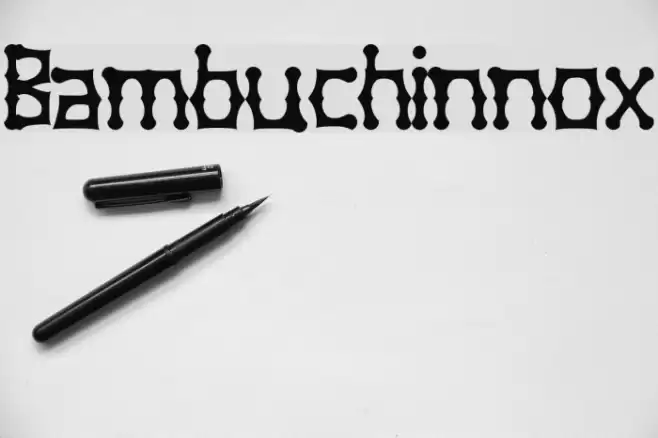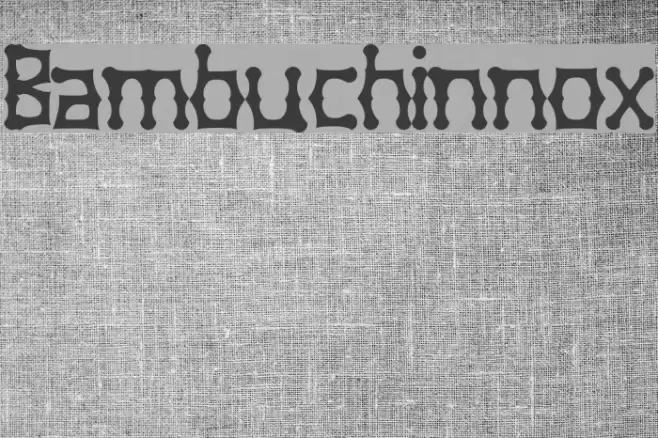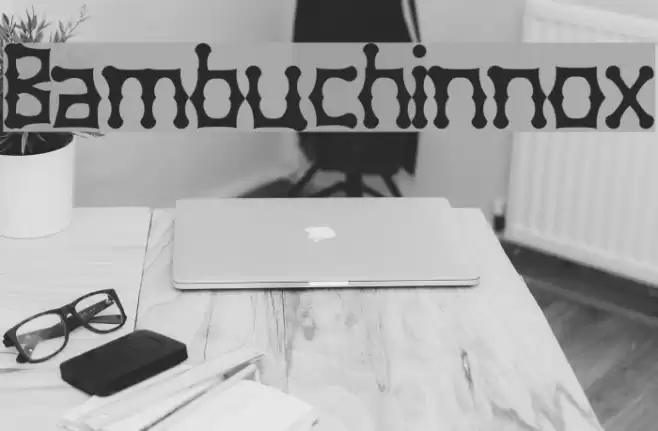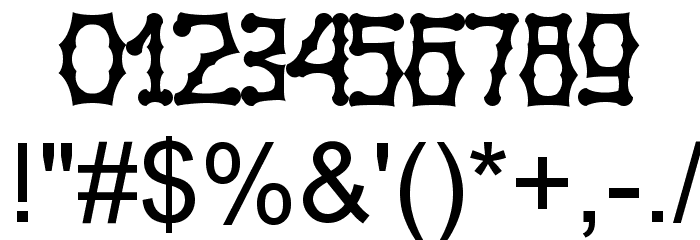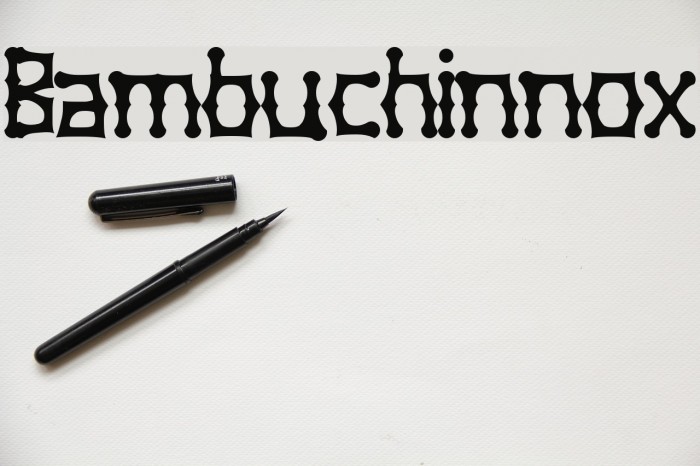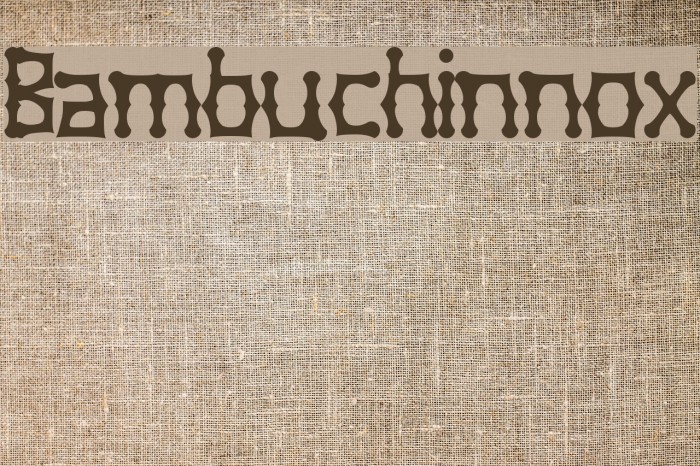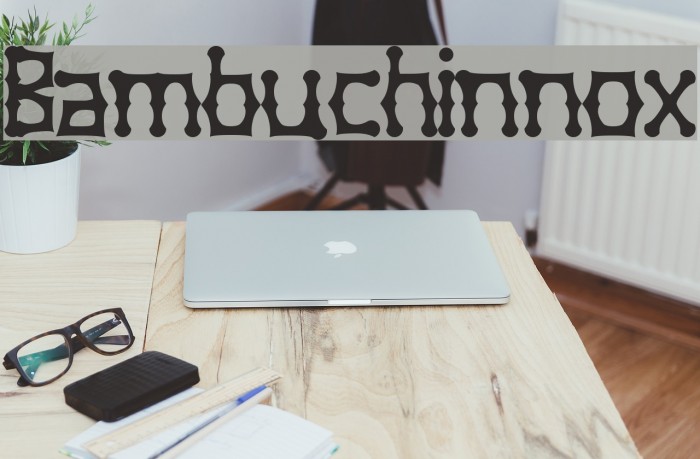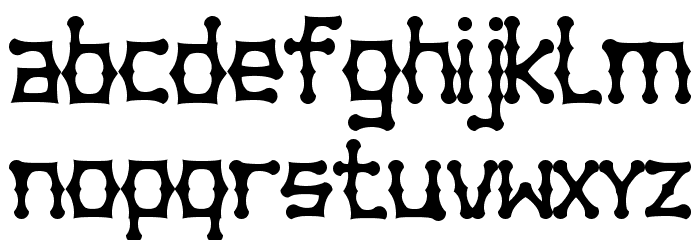
Bambuchinnox Font
Bambuchinnox Description
This font features a unique and playful design with a bone-like structure, giving it a distinctive and quirky appearance. The characters are bold and have irregular edges, creating a sense of movement and energy. The uppercase and lowercase letters maintain a consistent style, while the numerals and special characters complement the overall look. This font stands out due to its decorative and unconventional style, making it suitable for creative and artistic projects. The design is both eye-catching and memorable, perfect for making a statement.
A playful, bone-like decorative font with bold, irregular edges from Uncategorized fonts.
- Proposed Projects: Ideal for Halloween-themed designs, children's book covers, posters, and creative branding.